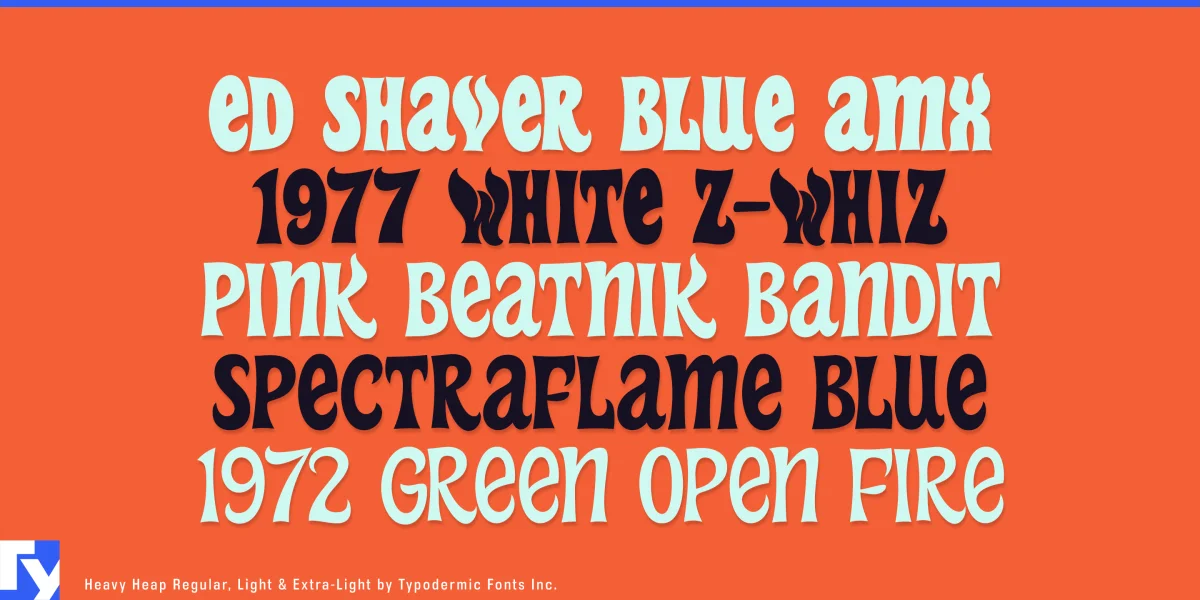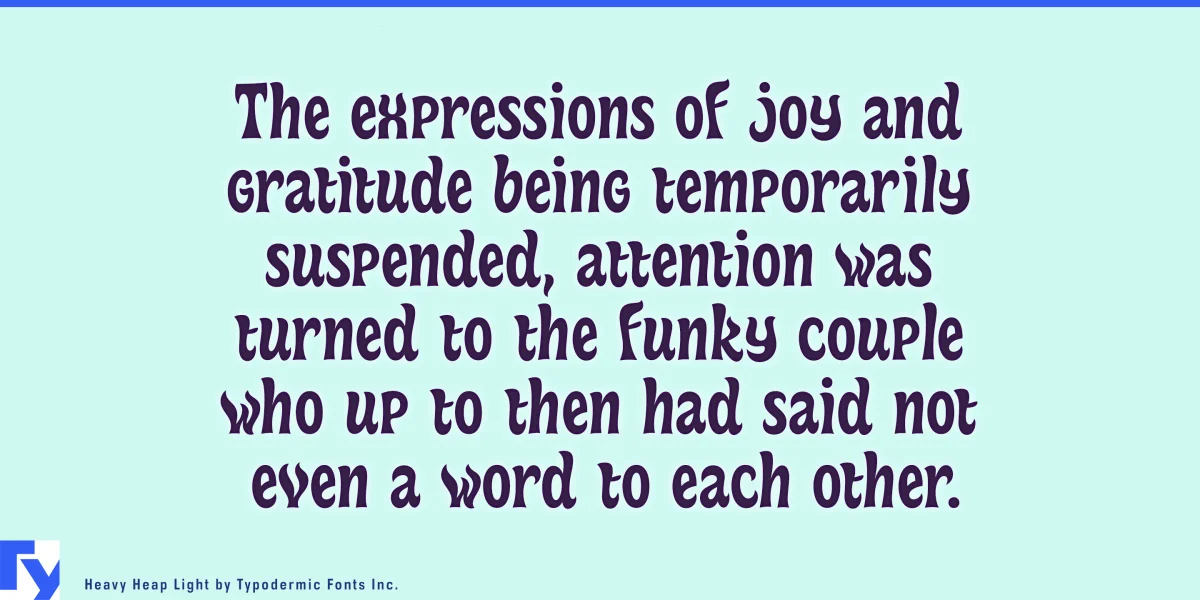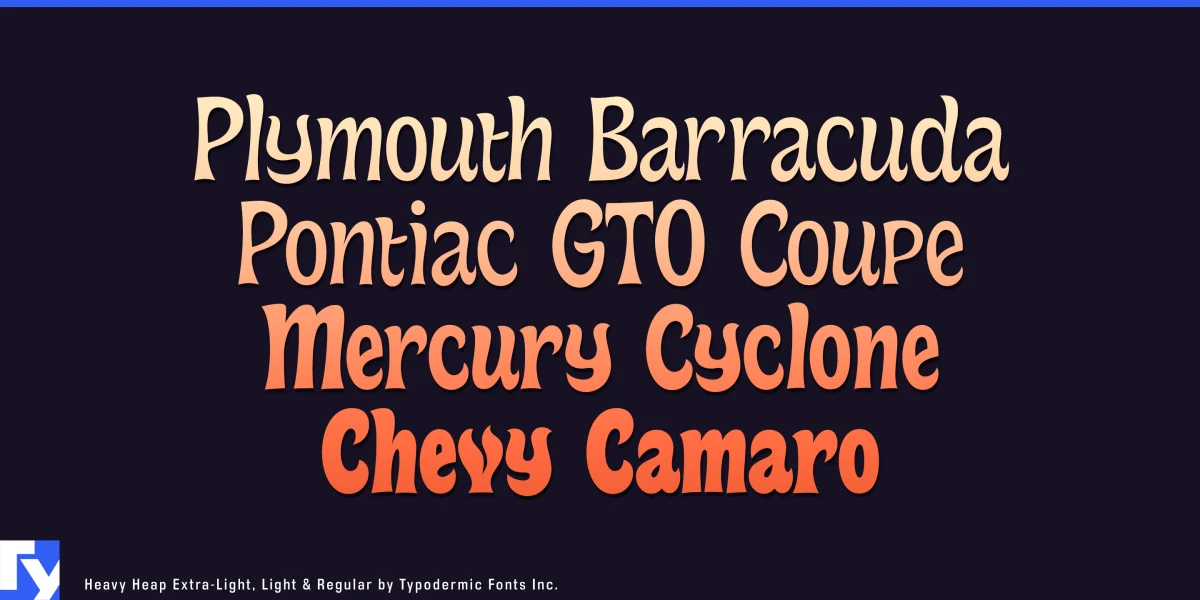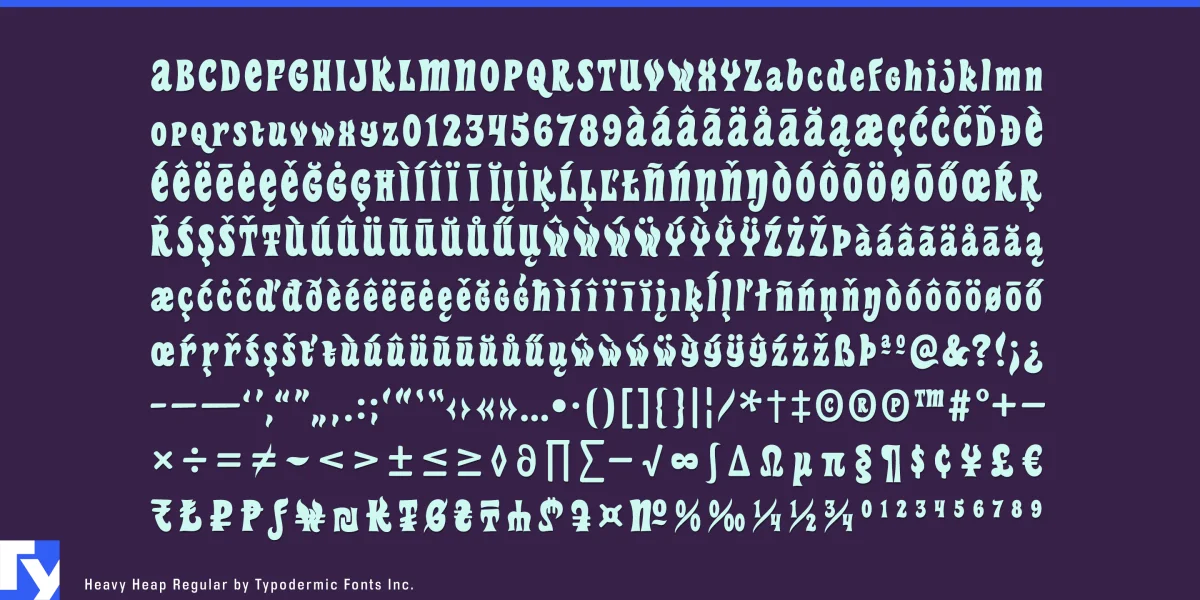
Heavy Heap is a groovy psychedelic typeface on fire! It has got a scorching look, reminiscent of 1960s hot-rod culture and die-cast toy vehicles. Heavy Heap is available in three sizzling weights and includes blistering mathematical symbols, torrid OpenType fractions and a range of searing hot currency symbols. It really shines in hot color schemes and looks outstanding when used with warp and envelope effects. Most Latin-based European writing systems are supported, including the following languages. Afaan Oromo, Afar, Afrikaans, Albanian, Alsatian, Aromanian, Aymara, Bashkir (Latin), Basque, Belarusian (Latin), Bemba, Bikol, Bosnian, Breton, Cape Verdean, Creole, Catalan, Cebuano, Chamorro, Chavacano, Chichewa, Crimean Tatar (Latin), Croatian, Czech, Danish, Dawan, Dholuo, Dutch, English, Estonian, Faroese, Fijian, Filipino, Finnish, French, Frisian, Friulian, Gagauz (Latin), Galician, Ganda, Genoese, German, Greenlandic, Guadeloupean Creole, Haitian Creole, Hawaiian, Hiligaynon, Hungarian, Icelandic, Ilocano, Indonesian, Irish, Italian, Jamaican, Kaqchikel, Karakalpak (Latin), Kashubian, Kikongo, Kinyarwanda, Kirundi, Kurdish (Latin), Latvian, Lithuanian, Lombard, Low Saxon, Luxembourgish, Maasai, Makhuwa, Malay, Maltese, Māori, Moldovan, Montenegrin, Ndebele, Neapolitan, Norwegian, Novial, Occitan, Ossetian (Latin), Papiamento, Piedmontese, Polish, Portuguese, Quechua, Rarotongan, Romanian, Romansh, Sami, Sango, Saramaccan, Sardinian, Scottish Gaelic, Serbian (Latin), Shona, Sicilian, Silesian, Slovak, Slovenian, Somali, Sorbian, Sotho, Spanish, Swahili, Swazi, Swedish, Tagalog, Tahitian, Tetum, Tongan, Tshiluba, Tsonga, Tswana, Tumbuka, Turkish, Turkmen (Latin), Tuvaluan, Uzbek (Latin), Venetian, Vepsian, Võro, Walloon, Waray-Waray, Wayuu, Welsh, Wolof, Xhosa, Yapese, Zapotec Zulu and Zuni.